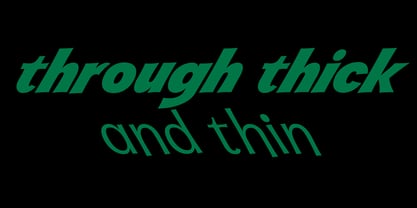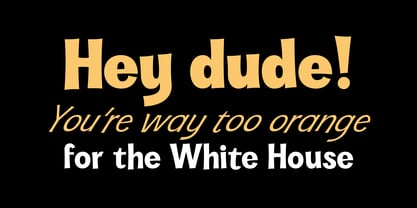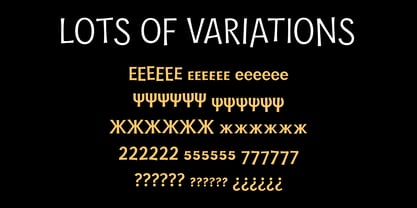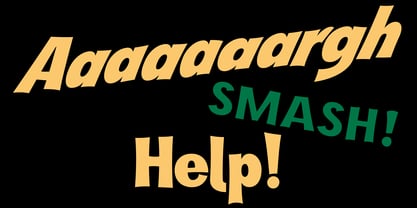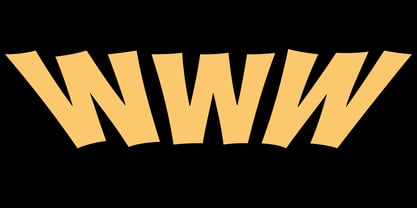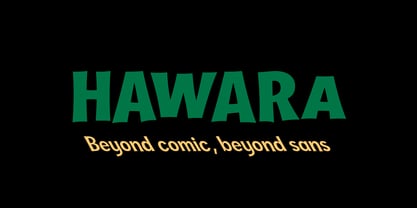
Hawara
The Hawara Font Family was designed by Ekke Wolf and published by Wannatype. Hawara contains 15 styles and family package options. More about this family
Hawara appears to be a new irregular typeface family in a funky comic style. But it is far more: By using the CALT feature, you can automatically set the letters changing between default style und 5 stylistic alternates. You can also choose the stylistic sets manually – or simply use the default style.
Each letter, figure and punctuation glyph is drawn in 6 variations.
The language support is great: Extended Latin alphabet is accompanied by full sets of Cyrillic and Greek alphabet. Figures are offered as lining, oldstyles and small caps and also superscripts and subscripts.
Hawara’s adventurous appearance is completed by extremely angled obliques: left-wards and right-wards, both slanted by 30°.